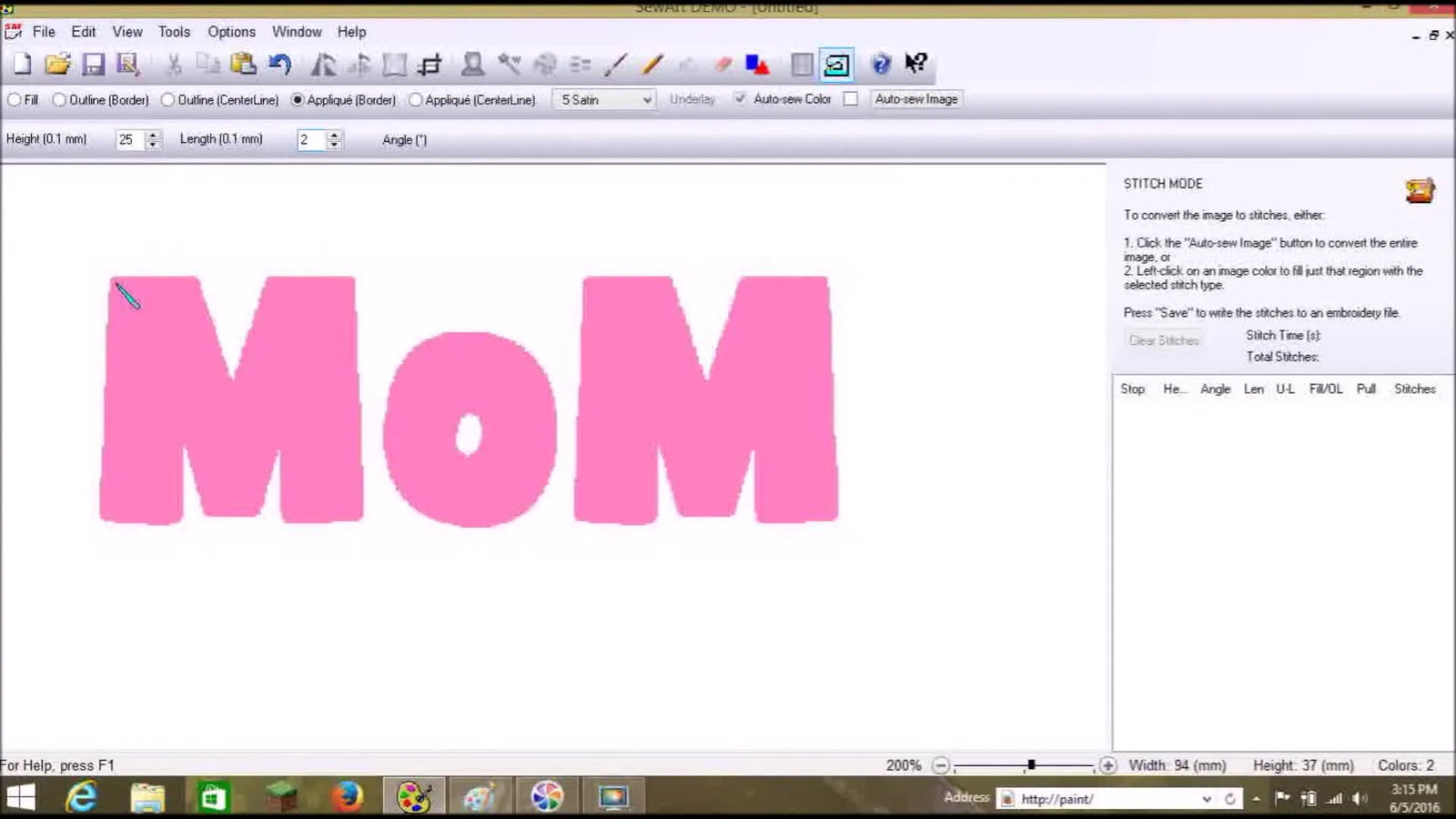
The good news is that appliqué lettering is one of the most forgiving and fastest ways to achieve bold, professional-looking text without needing the skills of a master digitizer. By using fabric to fill the space instead of thousands of stitches, you reduce the push-pull compensation risks that usually ruin beginner text projects.
Paint + Windows Fonts: Build “Fat” Letters That Won’t Collapse Under Satin Stitch
The video begins in Microsoft Paint. This is not a gimmick; it is a strategic choice. Paint generates pure, high-contrast bitmap data that eliminates the "noise" found in complex vector programs, making it the perfect feeder for auto-digitizing software like Sew Art.
The core engineering principle here is structural integrity. Appliqué needs "real estate." Thin scripts and delicate serifs do not provide enough surface area for the machine to lay down a die line, a tack down stitch, and a satin column without them overlapping and creating a bulletproof knot.
- Open Paint and select the Text tool.
- Type your lettering (the demo uses “MoM”).
-
Maximize the Font Size: Set it to 211 (or larger).
- Why? You want the highest resolution possible before you shrink it down. Digitizing pixilated edges creates jagged stitching.
- Select a "Fat" Block Font: Choose Arial Black, Impact, or similar. Avoid Times New Roman or scripts.
-
Crop Aggressively: remove all white space around the text. The software defines the center based on the canvas size; excess whitespace will throw off your centering in the hoop later.
Pro tip from the field: If your finalized letters look "blobby" or the corners look rounded after digitizing, the issue is almost always anti-aliasing (the gray pixels computers use to make text look smooth on screen). Paint creates crisp black-and-white edges. If you use other software, ensure you turn off anti-aliasing (font smoothing) before saving the image.
The 2-Color Cleanup in Sew Art: The One Click That Prevents Speckled, Messy Borders
When you paste the image into Sew Art, the video demonstrates a step that 90% of beginners skip to their detriment: Color Reduction.
Even a black-and-white image might contain 256 shades of gray along the edges. If you don't clean this, the machine will interpret those gray pixels as "tiny stitches," causing the machine to slow down, stutter, and create a messy edge.
The Cleanup Protocol:
- Paste the image into Sew Art.
- Locate the "Image Color Reduction" tool.
-
Force the count to exactly 2.
-
Sensory Check: The image should look stark and harsh on the screen. This is good. Sharp visual edges equal sharp stitch commands.
-
Sensory Check: The image should look stark and harsh on the screen. This is good. Sharp visual edges equal sharp stitch commands.
Next, you must map the pixels to physical reality. The Brother SE425 uses a 4x4 inch (100mm x 100mm) field.
-
Resize Width: Set to ~95.00 mm.
-
Safety Margin: Never set a design to exactly 100mm. You need a 5mm buffer for the presser foot and hoop accumulation.
-
Safety Margin: Never set a design to exactly 100mm. You need a 5mm buffer for the presser foot and hoop accumulation.
This "Oversize First, Resize Later" method preserves the geometry of the curves while ensuring you fit safely inside your brother 4x4 embroidery hoop limits.
Appliqué Border in Sew Art: Height 25 + Length 3 (and Where You Click Matters)
This is where we convert pixels into thread commands. Sew Art’s "Appliqué Border" tool is an automated script that generates three specific layers:
- Placement Line (Die Line): Shows you where to put the fabric.
- Tack Down: Stitches the fabric to the stabilizer.
- Satin Finish: covers the raw edges.
The Parameter Formula:
- Select: Appliqué Border Tool.
-
Height = 25: In Sew Art's proprietary units, this controls the width of the satin column.
- Context: A setting of 15 is too narrow; your cut fabric edges might poke through. 25 gives you a generous, commercial-grade coverage width (approx 2.5mm - 3mm wide).
-
Length = 3: This controls the density (spacing between needle penetrations).